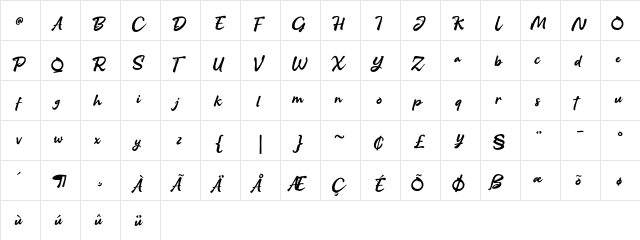
Stay Home Script_PERSONAL Regular
| Designer | olexstudio |
Design Context for Stay Home Script_PERSONAL Typeface
Stay Home Script_PERSONAL brings a calligraphic fluidity to the page — its connecting strokes and expressive curves give it an unmistakably human quality.